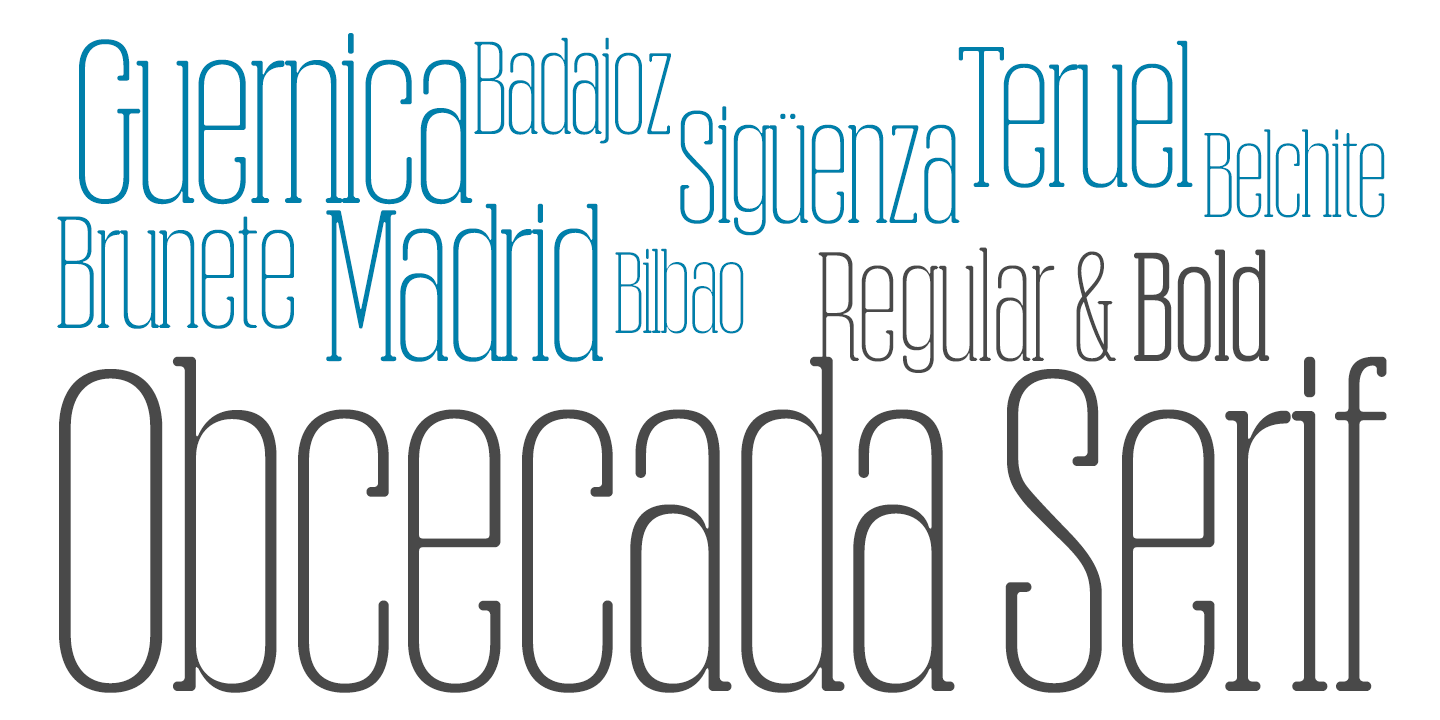
Obcecada Sans & Serif Font is a strikingly versatile typeface duo, meticulously designed to offer a harmonious blend of modern simplicity and classic elegance. This unique pairing provides designers with an unparalleled ability to create visually cohesive and sophisticated projects. Imagine the clean lines of the Sans version gracing corporate websites, delivering clear and impactful messages in annual reports, or providing a contemporary feel to app interfaces. Simultaneously, envision the refined beauty of the Serif version adding a touch of class to luxury brand packaging, lending authority to editorial layouts in high-end magazines, or creating elegant wedding invitations. This duality makes Obcecada Sans & Serif Font an exceptional choice for comprehensive branding projects where consistent aesthetic across varied applications is paramount.
What makes Obcecada Sans & Serif Font truly exciting is its intelligent design as a complementary pair. This isn't just a collection of random fonts; it's a thoughtfully crafted system where each style, Sans and Serif, enhances the other, allowing for dynamic typographic pairings without the guesswork. The Sans offers a minimalist and functional aesthetic, while the Serif provides warmth, tradition, and nuanced detail. This synergy ensures your designs are not only modern and professional but also possess depth and character. The legibility across both styles is outstanding, making them suitable for everything from large display type to small body copy. Obcecada Sans & Serif Font stands out by offering a complete and sophisticated typographic solution that empowers designers to create truly compelling visual narratives.
The Obcecada Sans & Serif Font family is typically extensive, providing a comprehensive range of weights and styles across both the sans-serif and serif variations. For the Sans family, you can expect a wide spectrum, often including Thin, Light, Regular, Medium, Semibold, Bold, and Black weights, each with corresponding italic versions. This versatility allows for robust hierarchical design in digital and print media. Similarly, the Serif family will usually offer a comparable range of weights, from delicate to strong, ensuring that you can maintain stylistic consistency while varying emphasis. Both families often include a rich set of OpenType features such as ligatures, alternative characters, and multilingual support, further enhancing their flexibility. For those seeking Obcecada Sans & Serif Font Free Download, exploring this extensive family will reveal its full potential for creating diverse and integrated design systems.